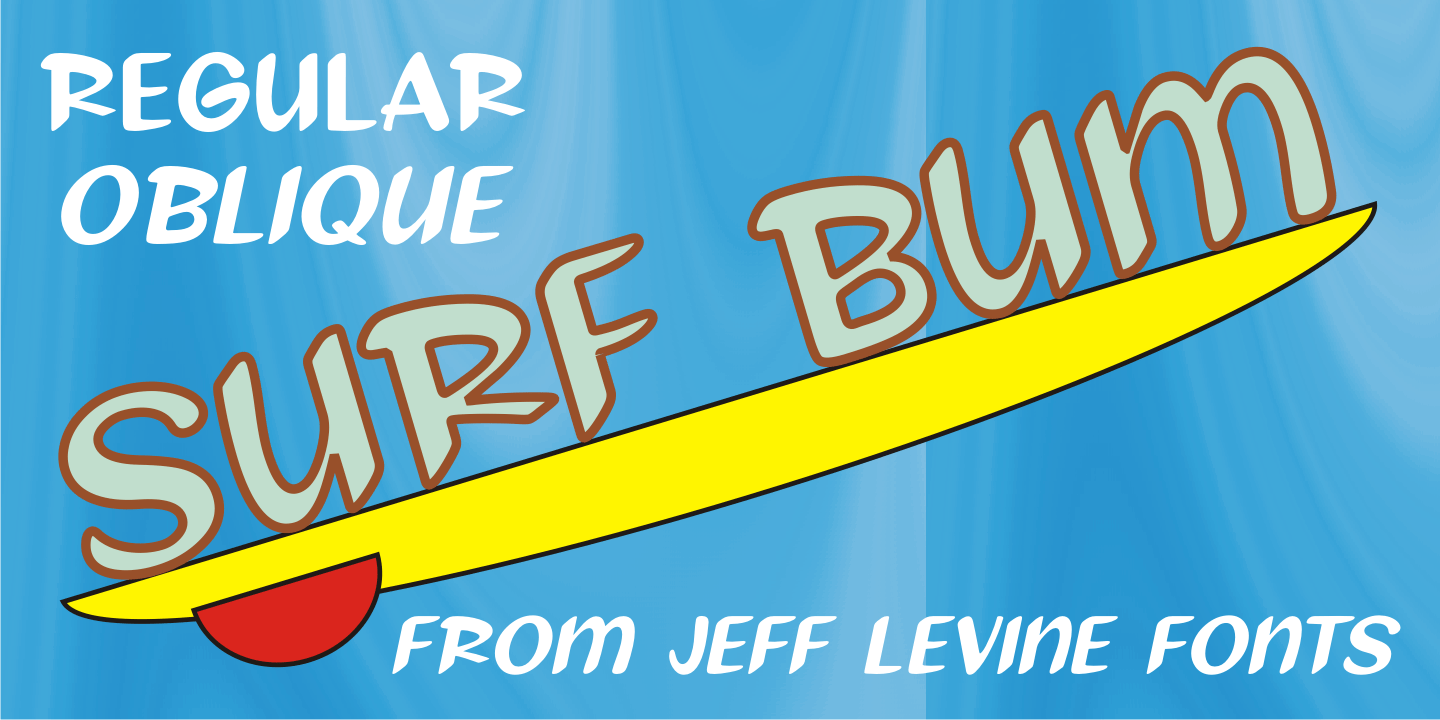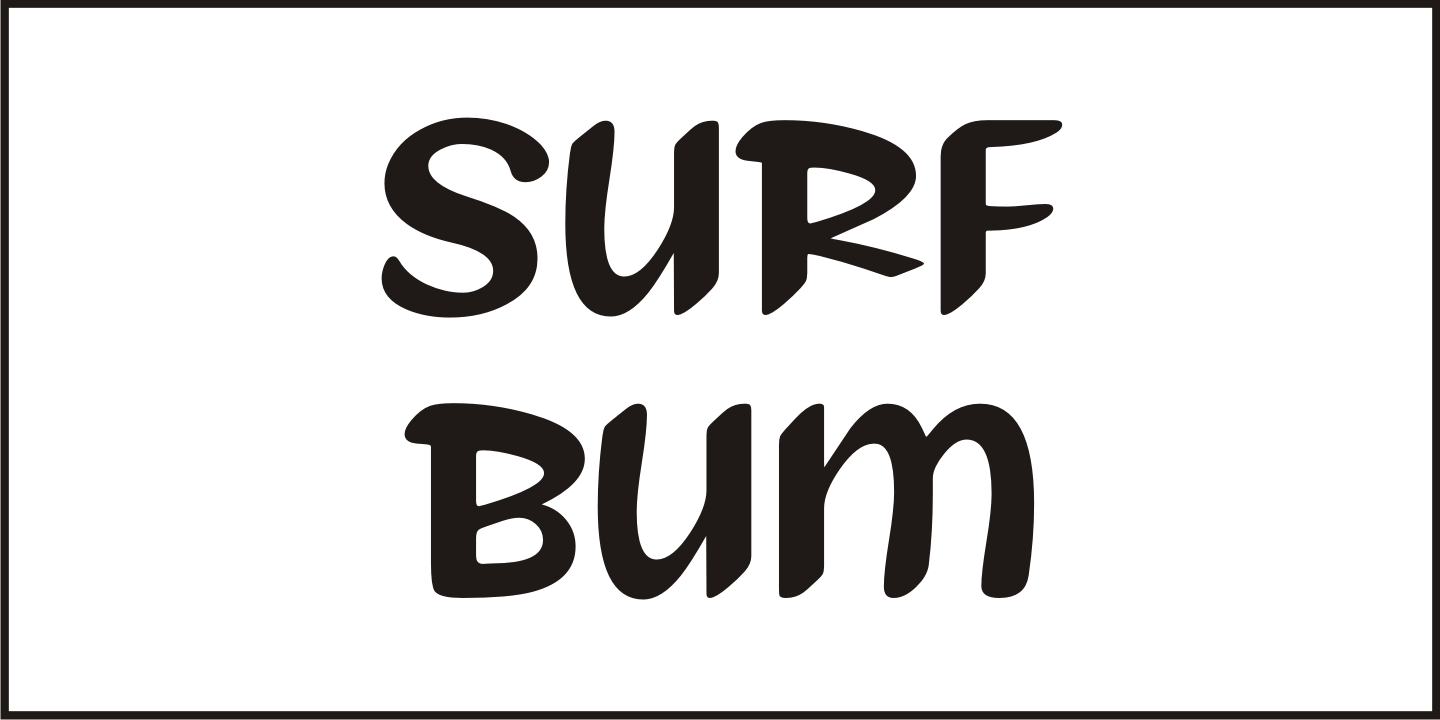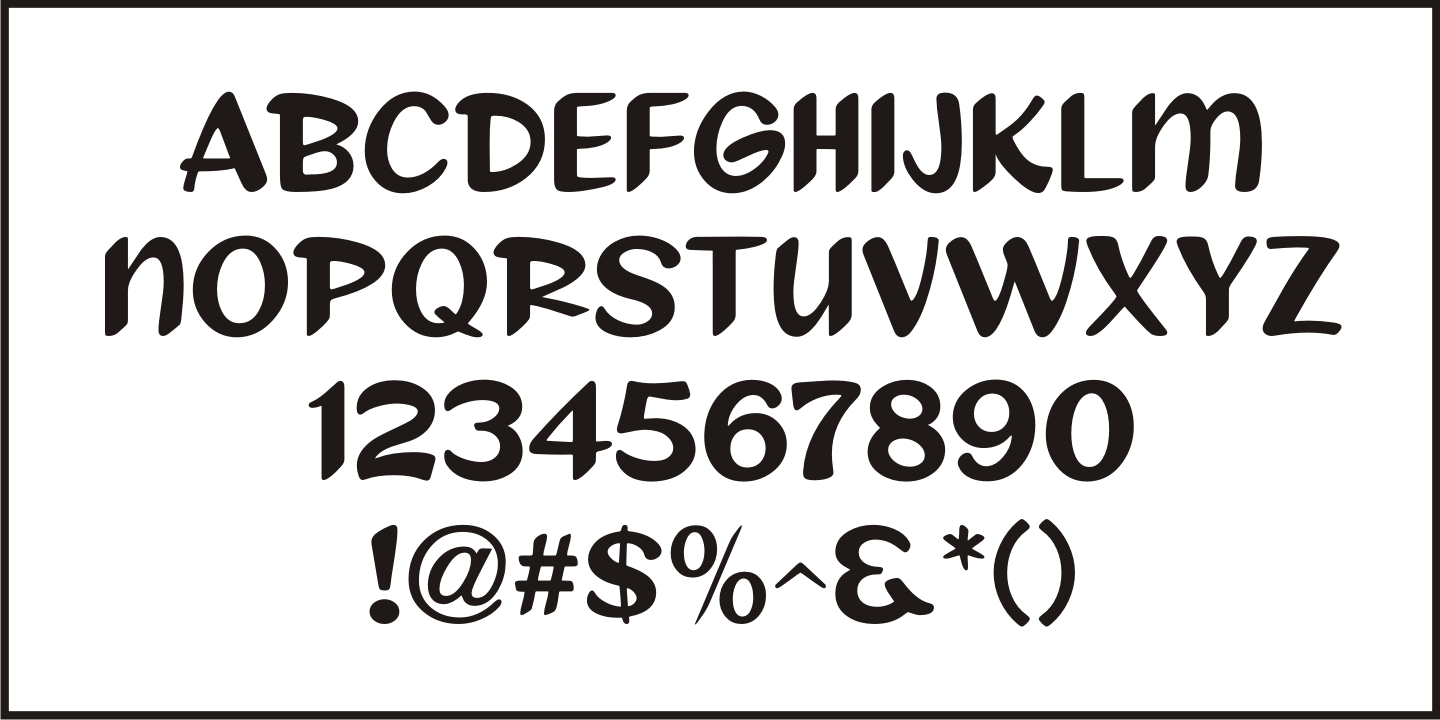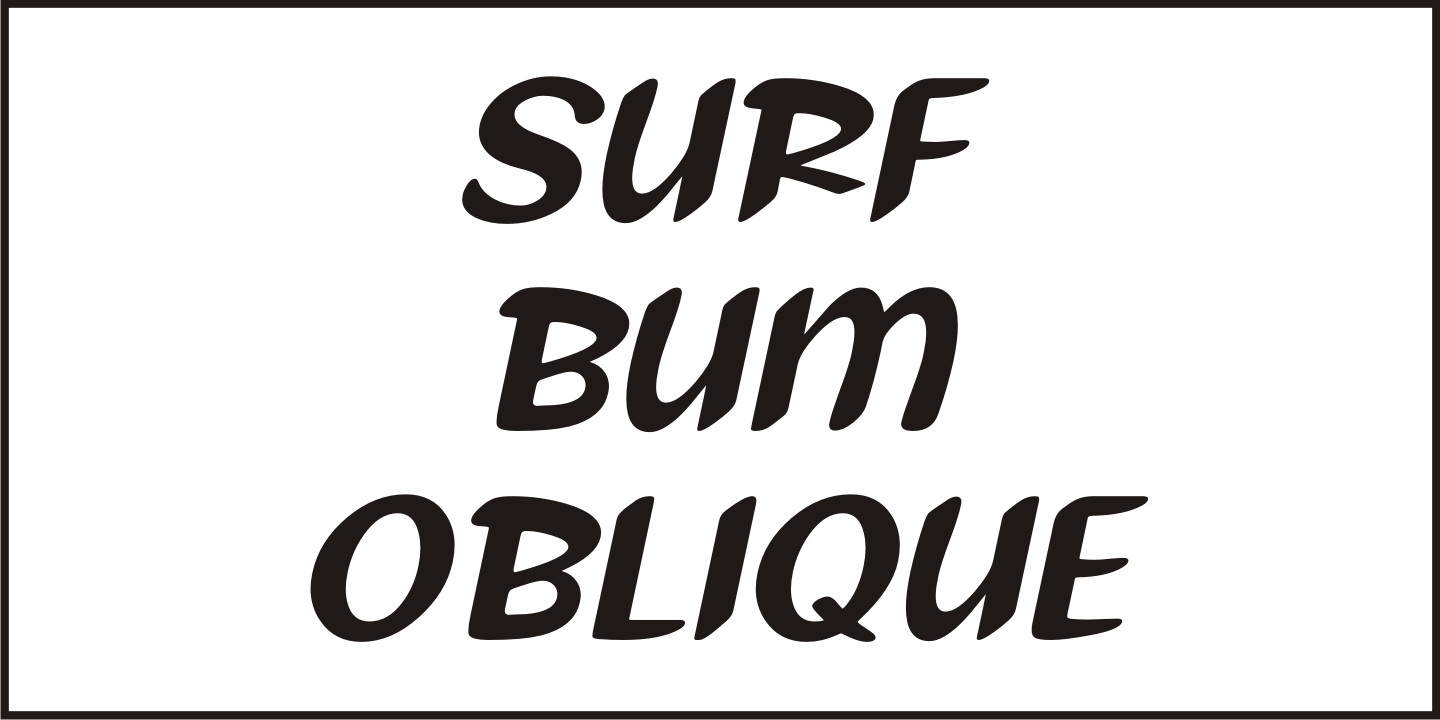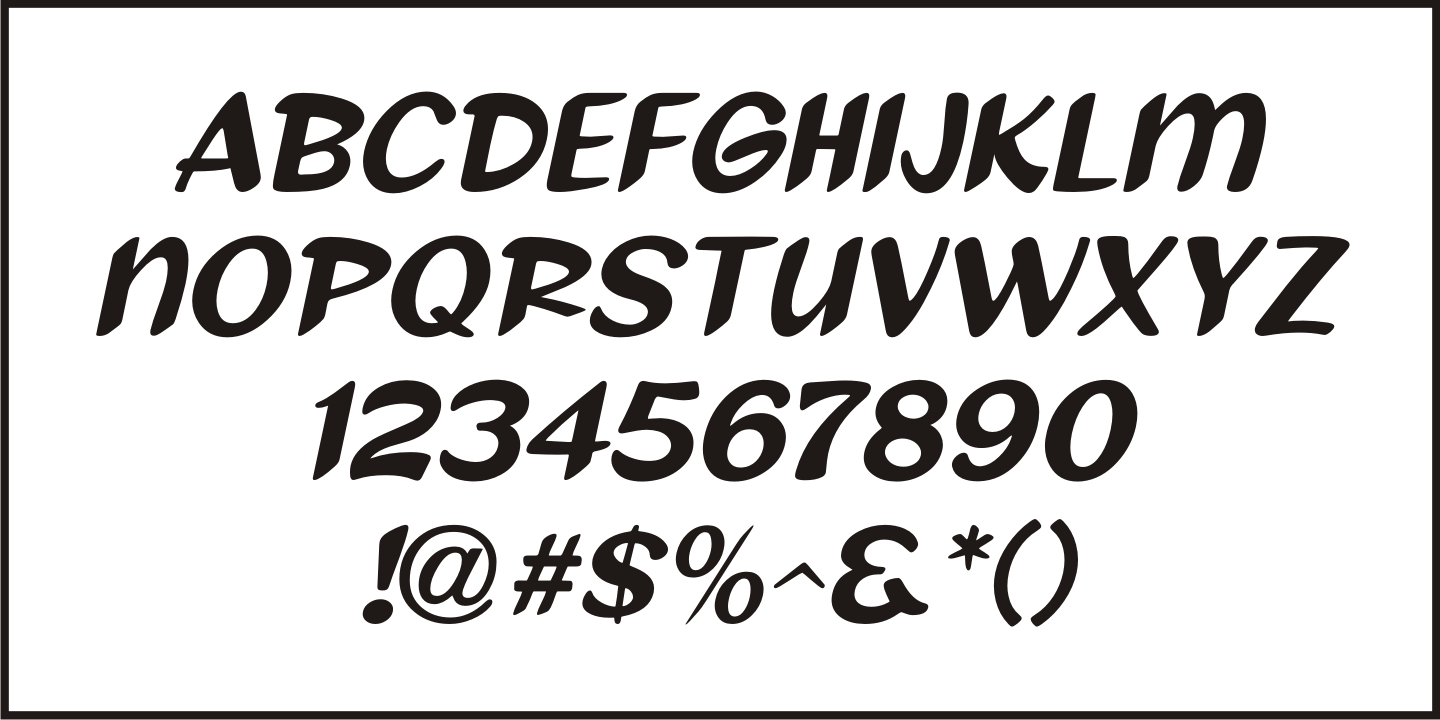
Surf Bum
The term 'Surf Bum' was a slang phrase used to casually describe anyone who spent as much of their time as possible at the beach catching waves in the 1960s.
The Revell Company was a well-established maker of plastic model kits such as military airplanes, monsters from Universal horror films and other such items when it hooked up with custom car designer Ed 'Big Daddy' Roth to develop a model kit line capitalizing on the surfing fad that was sweeping the West Coast at the time.
A number of crazy-looking hot rods, dune buggies and what-have-you were turned out, and one such kit ('Surfite', with Figure) featured a futuristic one-person dune buggy.
It was on the box for the model that the words 'with Figure' appear in a casual, brush design type face.
Those few letters were the inspiration for creating a new retro type face entitled Surf Bum JNL, which is available in both regular and oblique versions.